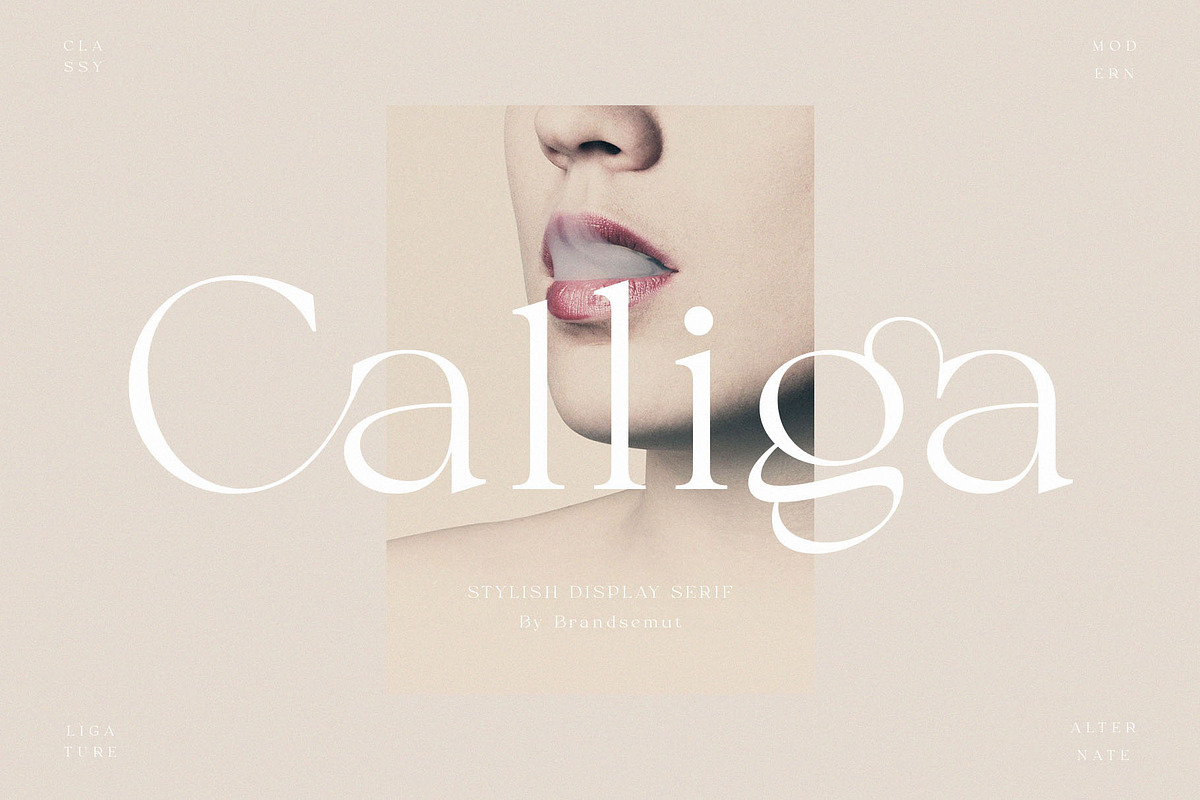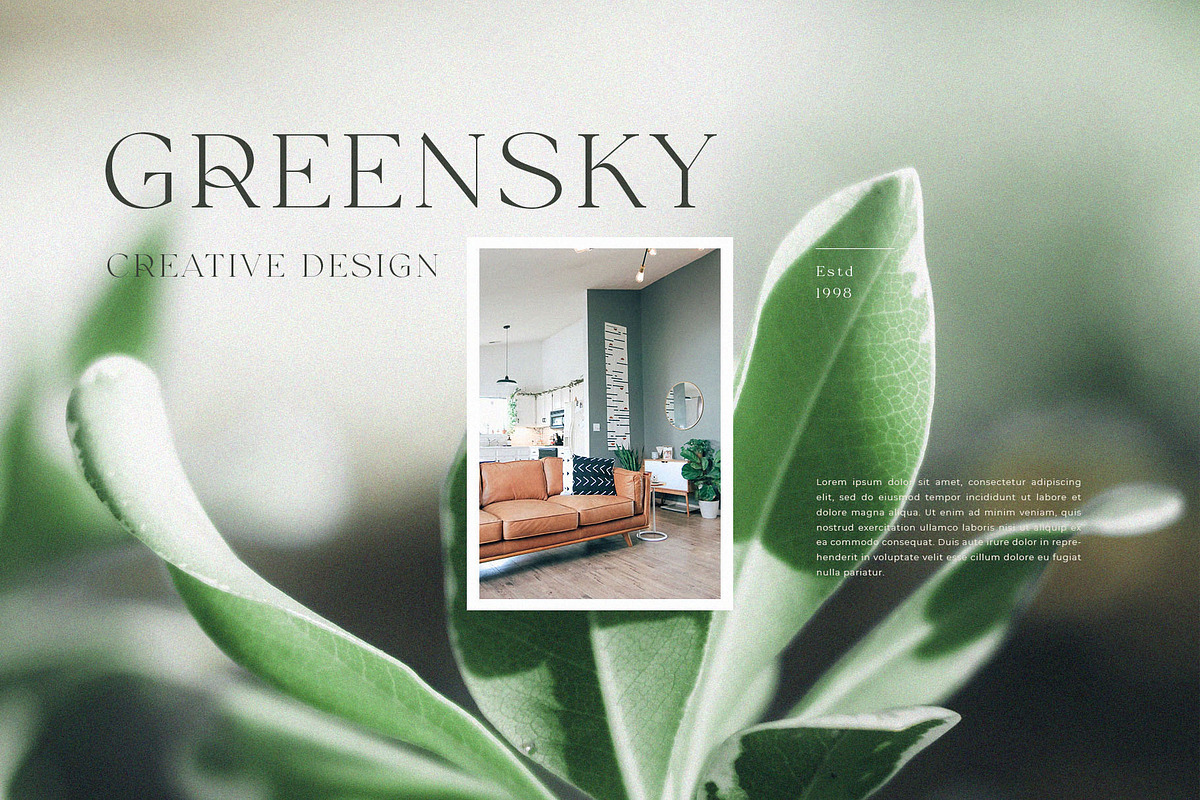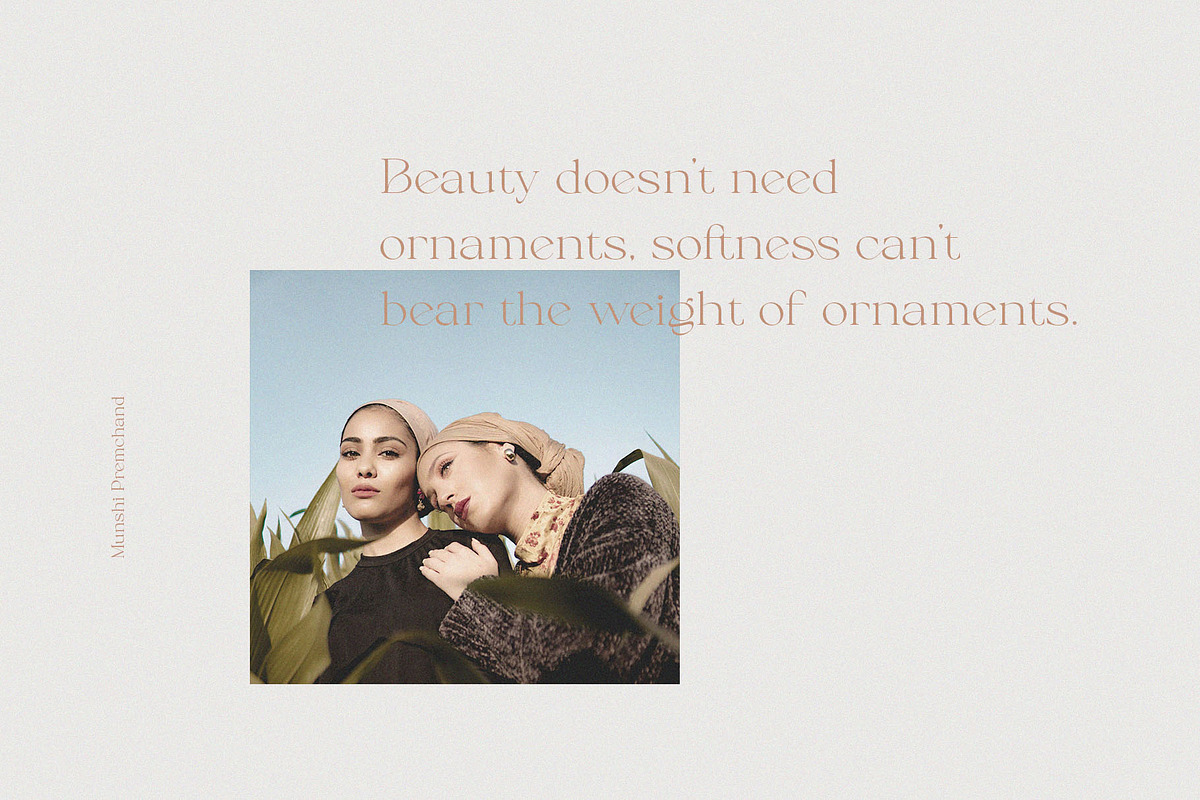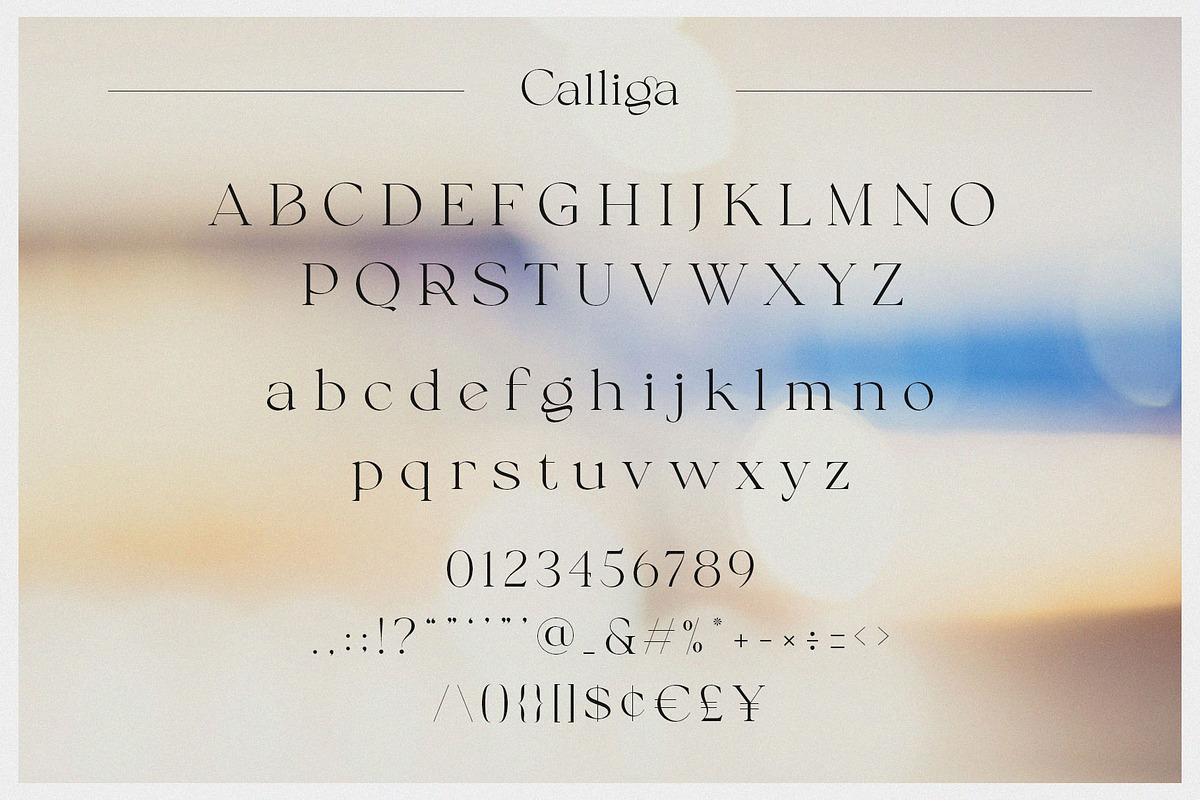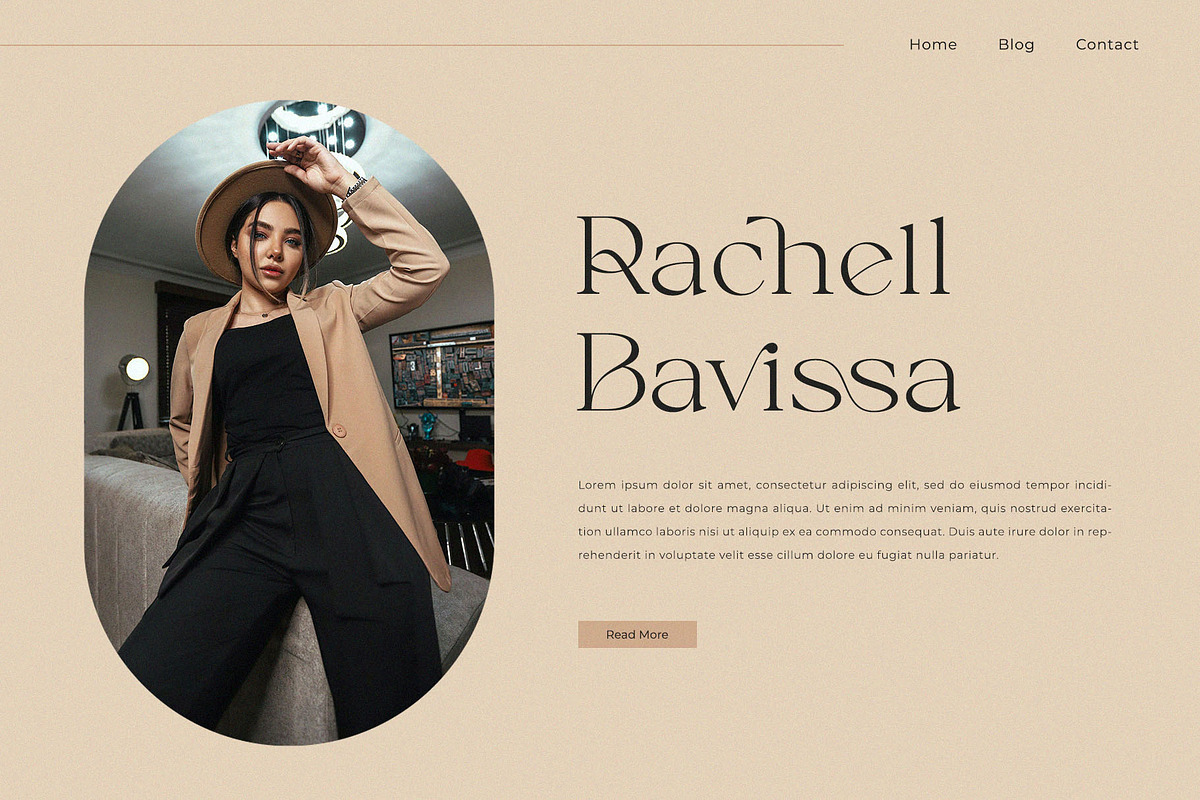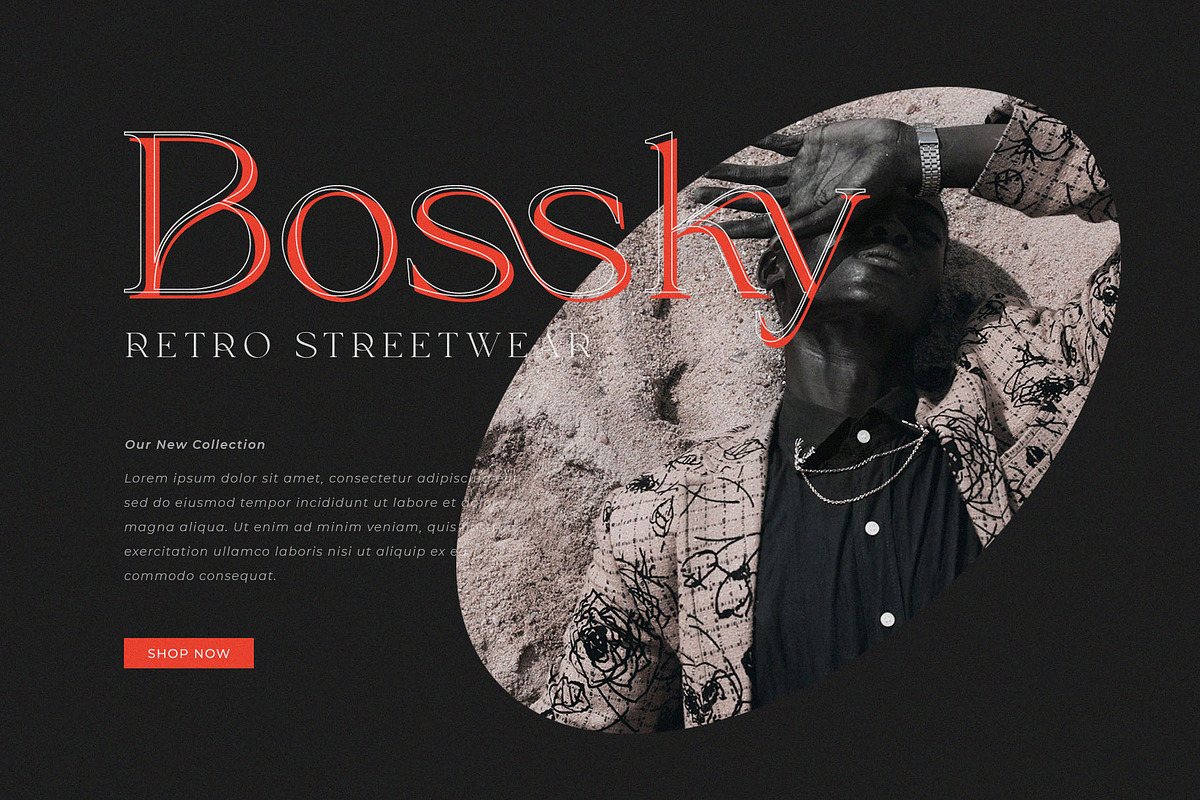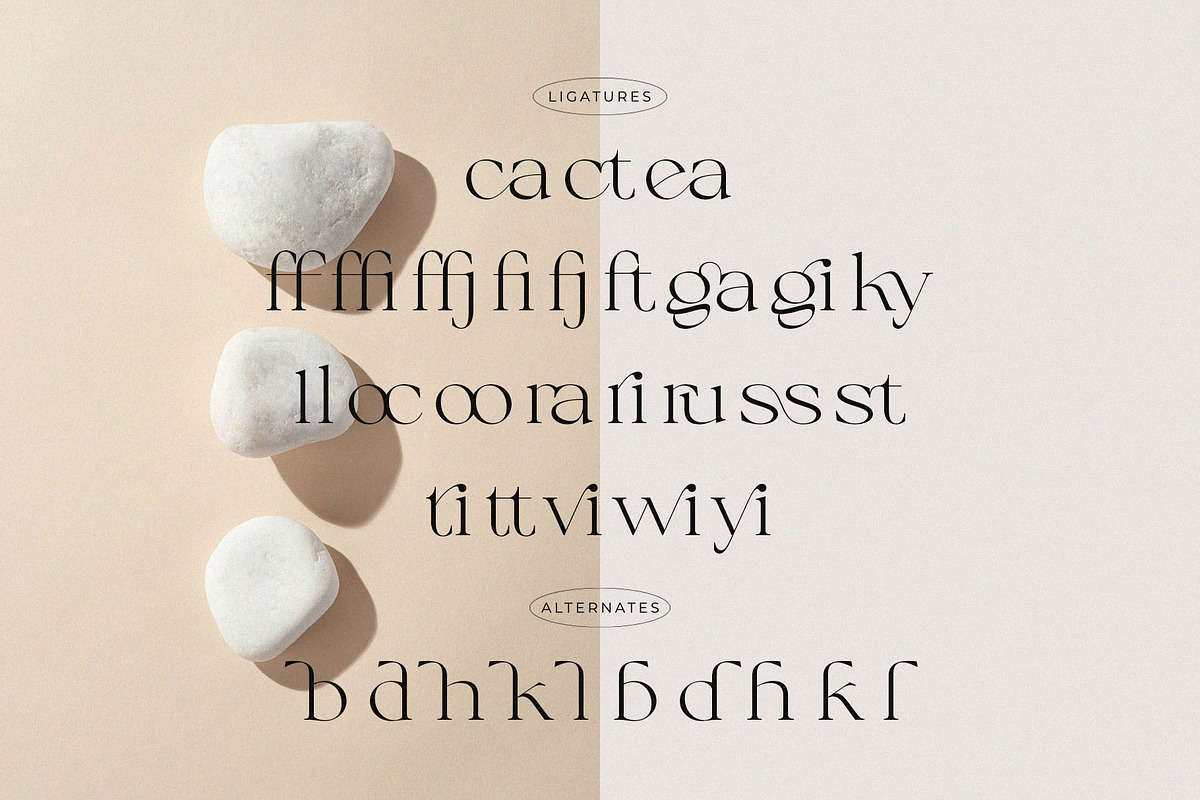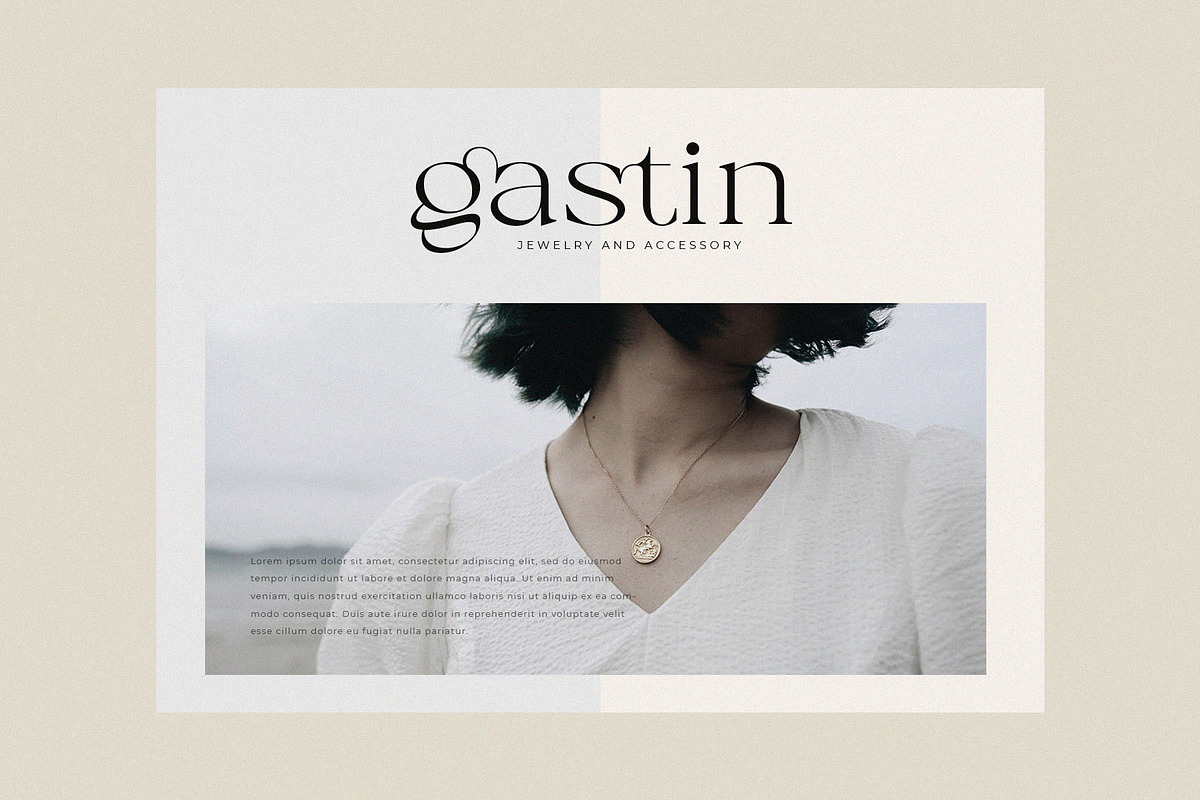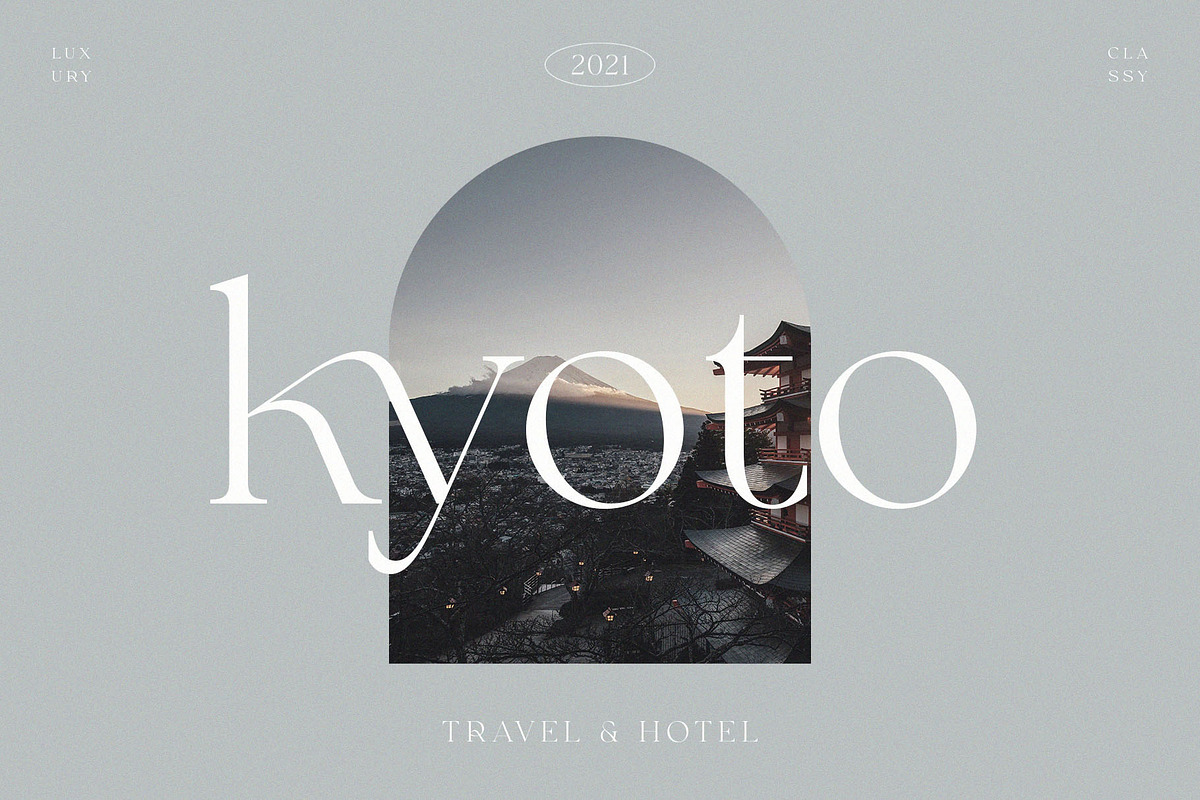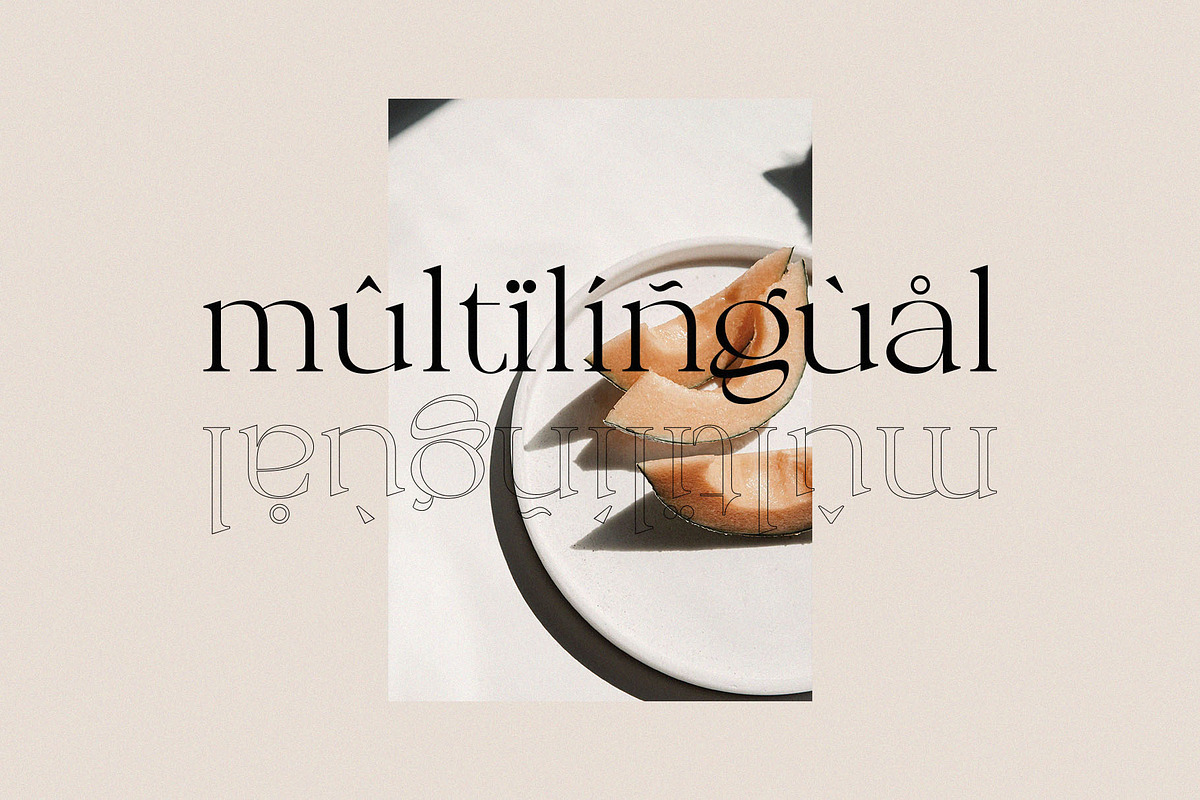
Calliga // Stylish Ligature Serif
Introducing the new Calliga Stylish Ligature Serif!!! Calliga is a modern and elegant serif font. This font is both modern and luxury and works great for logos, magazine, social media. Already matched up and ready to be used together for your next design! For those of you who are needing a touch of elegant, stylish, classy, chic and modernity for your designs, this font was created for you!
Calliga was built with OpenType features and includes ligatures, alternates, numbers, punctuation, and it also supports other languages.